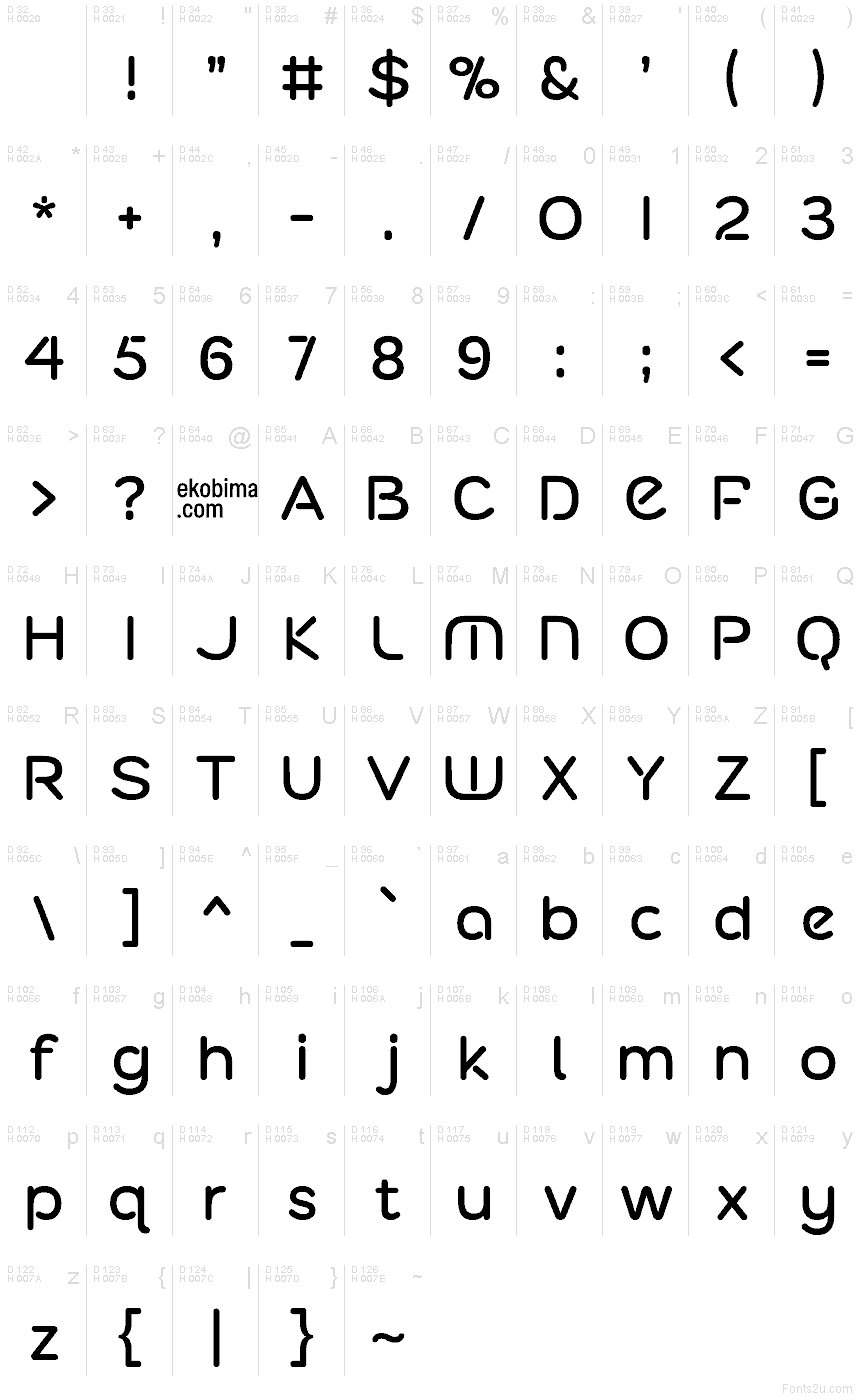
Roundex Regular
Roundex font by Eko Bimantara is a free rounded sans font. It hits that tricky sweet spot between soft, friendly curves and clean, engineered geometry. The strokes feel cushioned yet steady, with open forms and even rhythm that keep text breezy and legible from buttons to billboards.
Using Roundex gives brands a warm, modern voice that still reads as professional. It shines on app UI labels, product landing pages, wellness or tech branding, packaging, signage, and social graphics. This free font also handles small sizes well; for headlines, add a touch of tight tracking. Pair it with a crisp serif for body copy to anchor the glow.